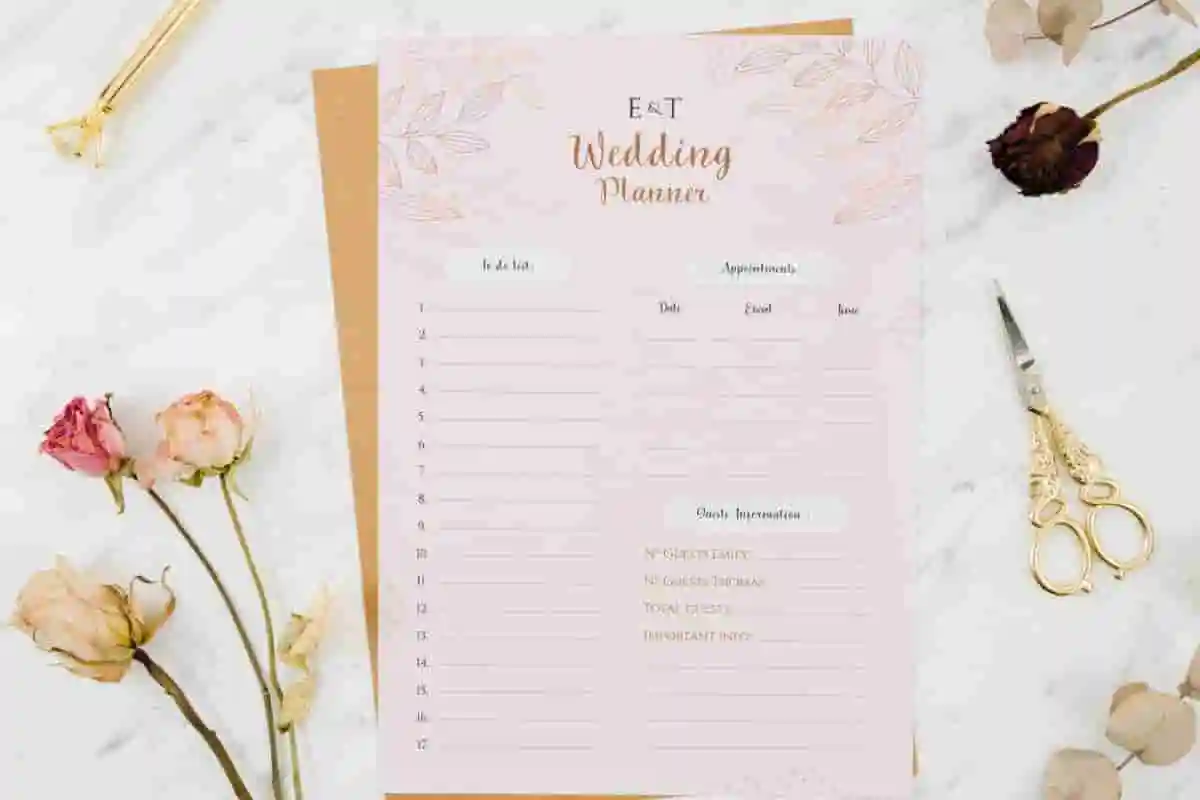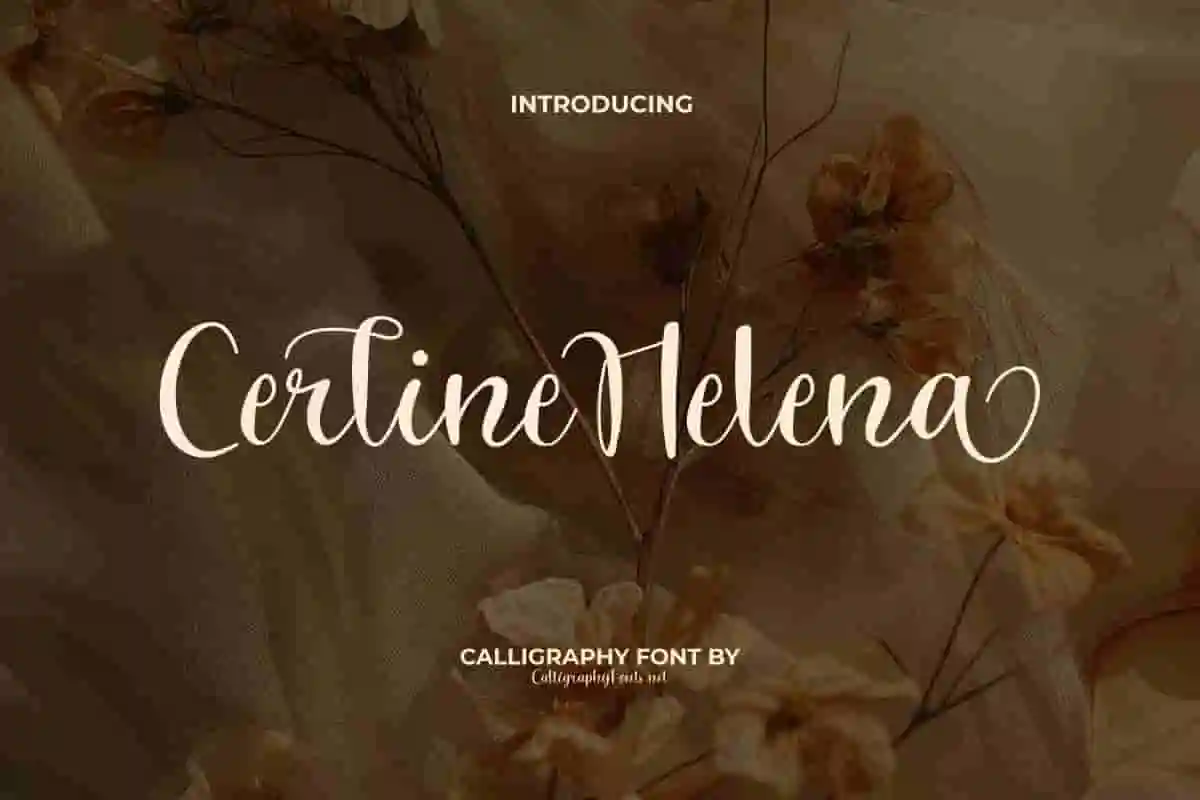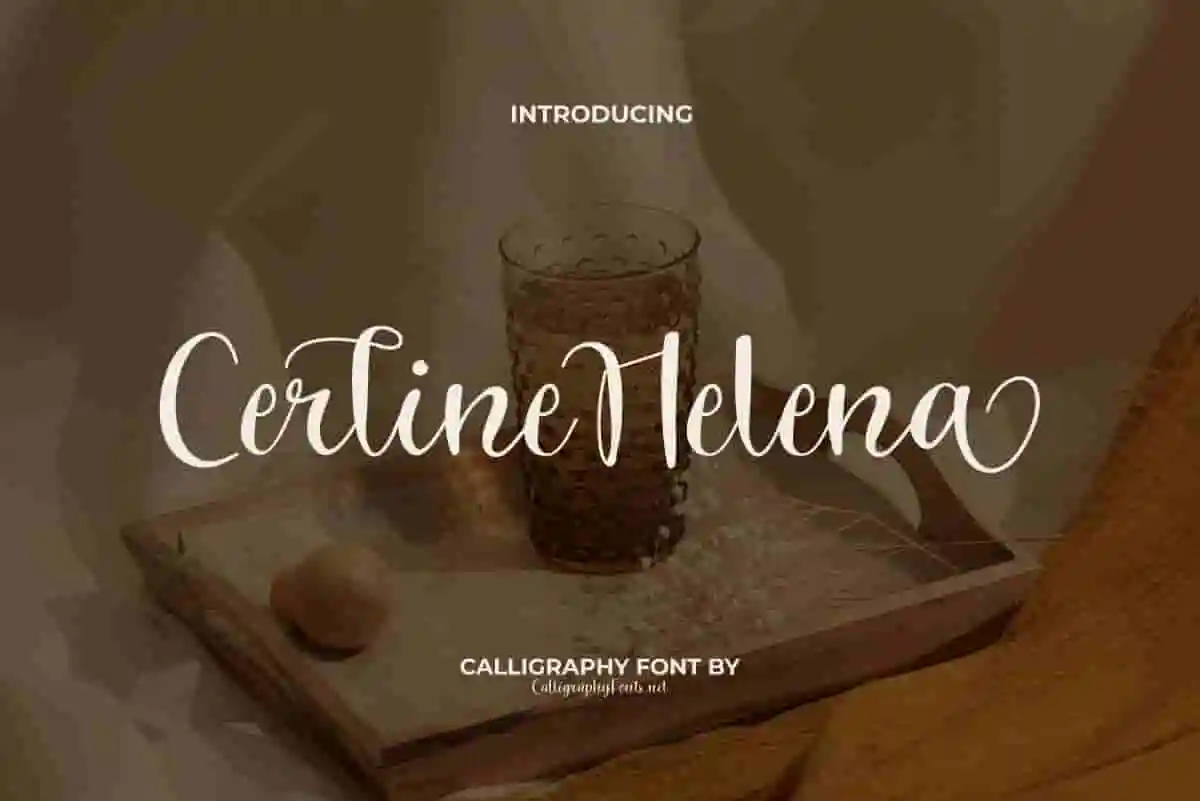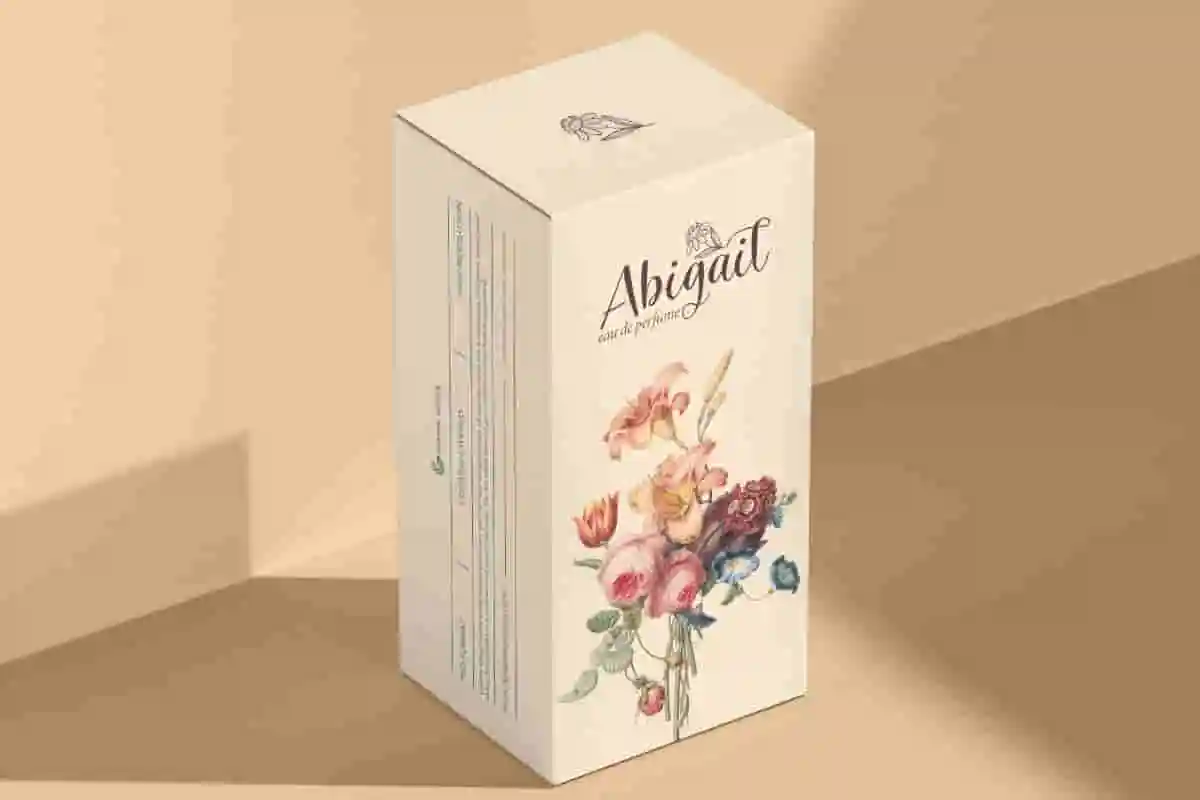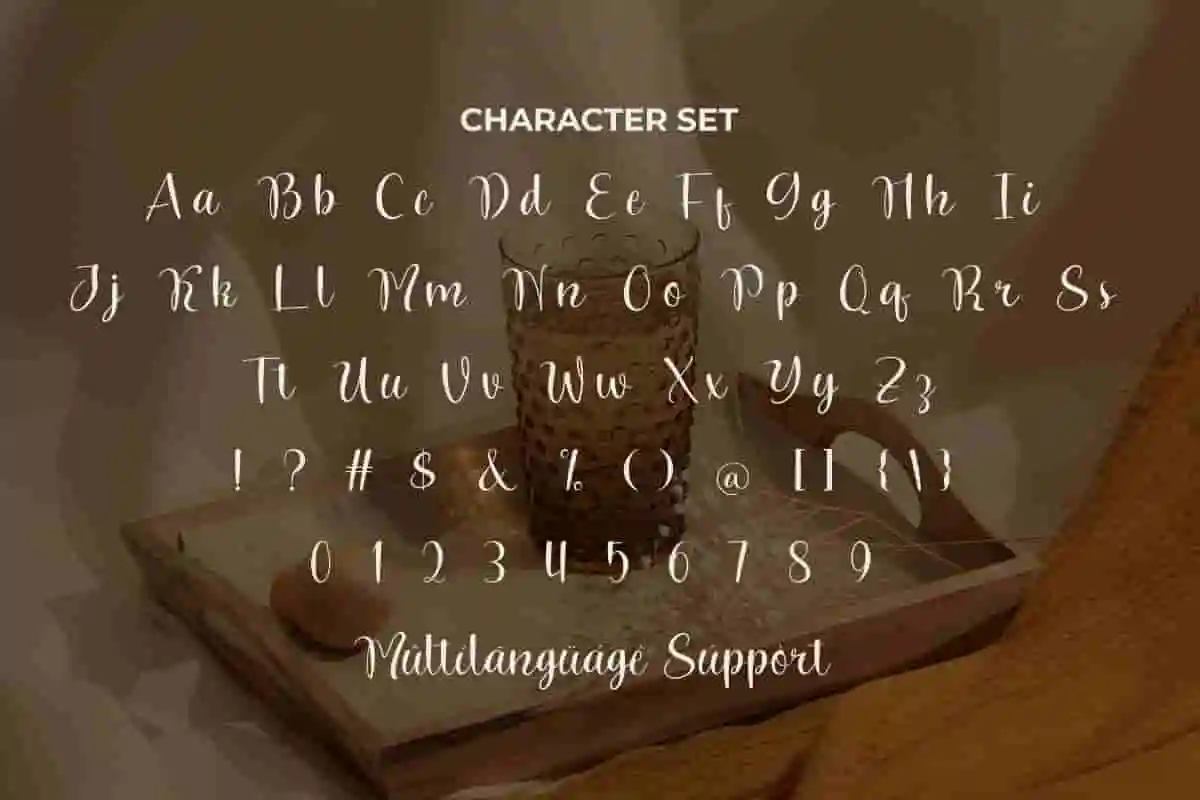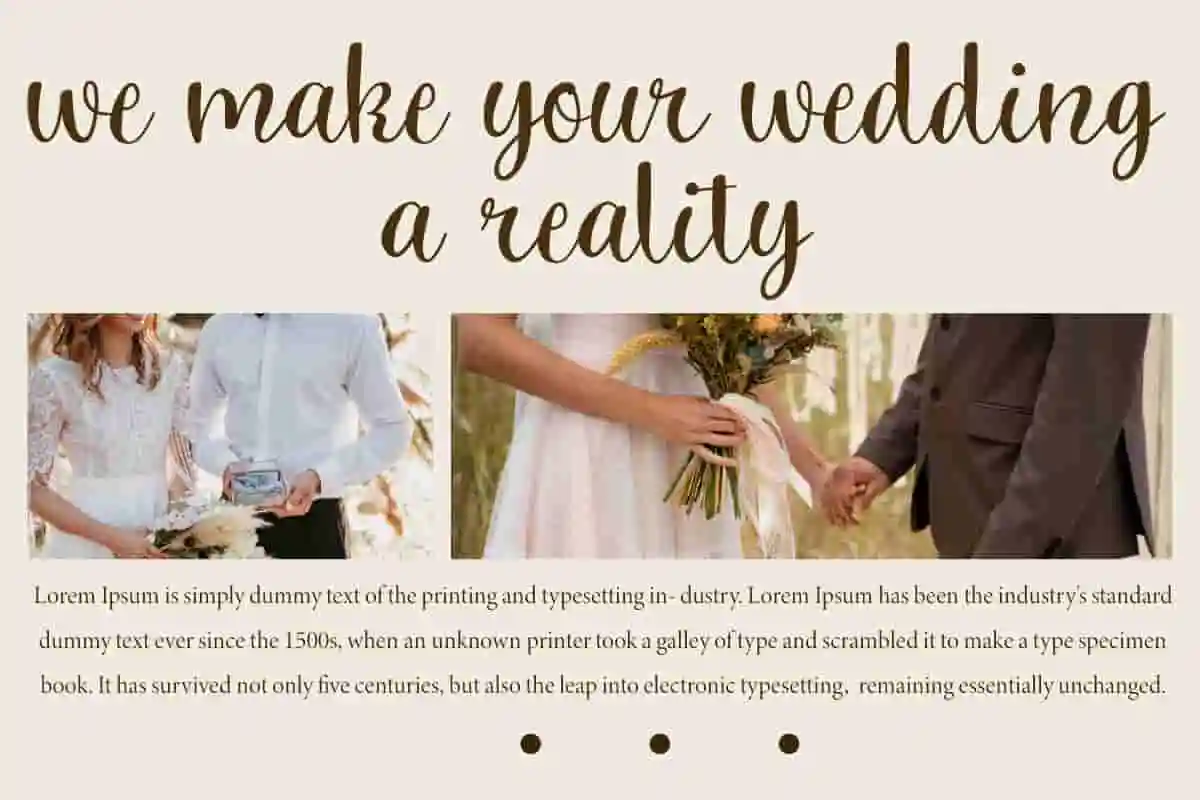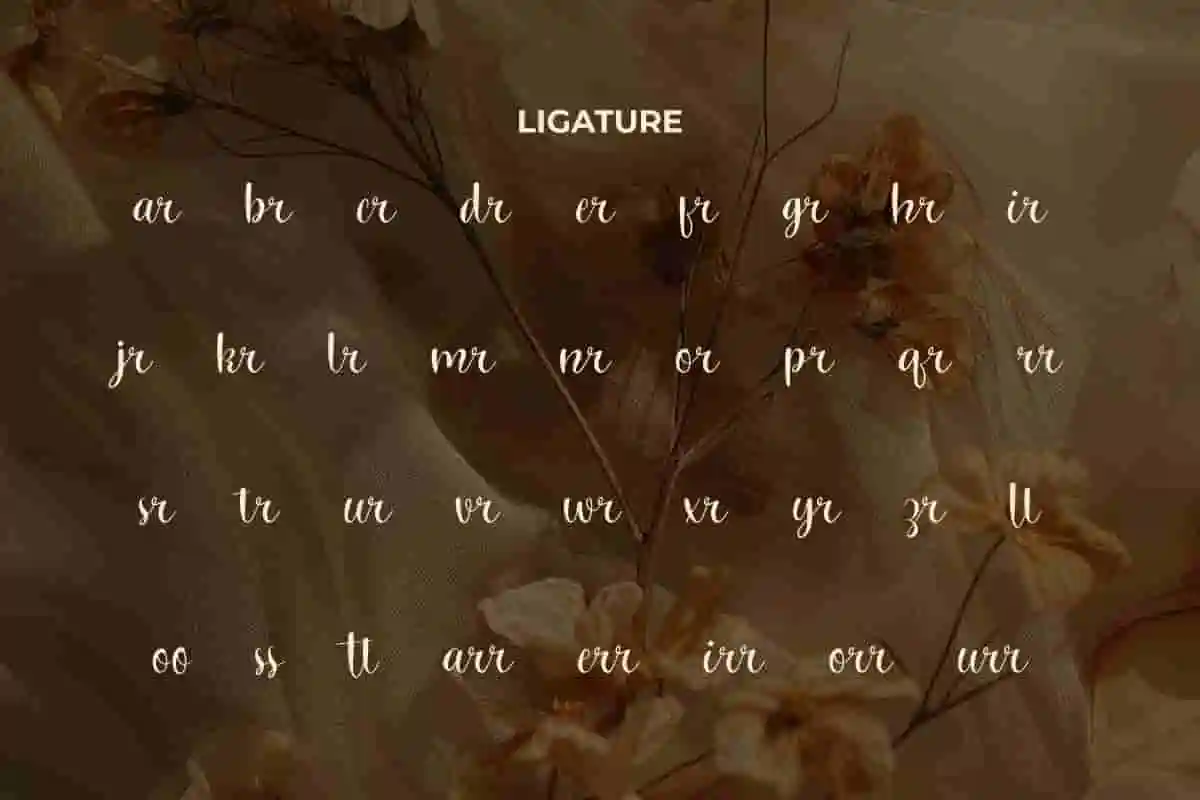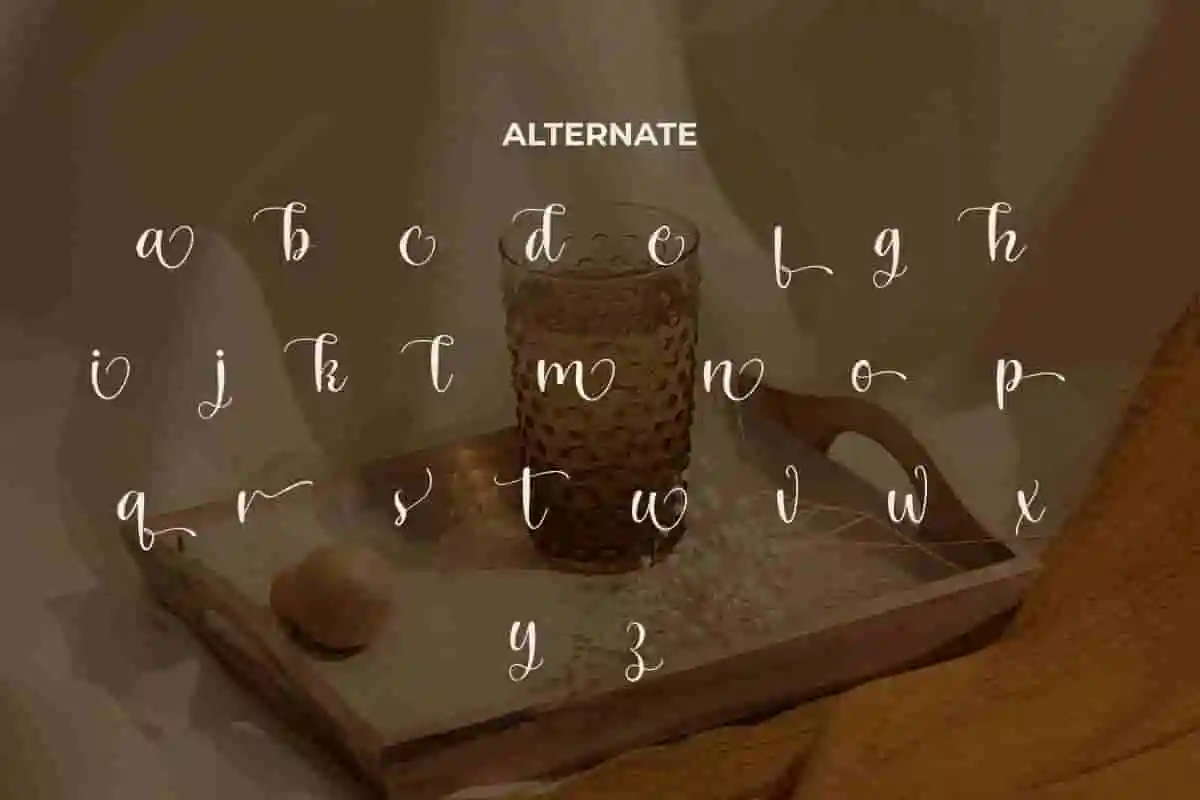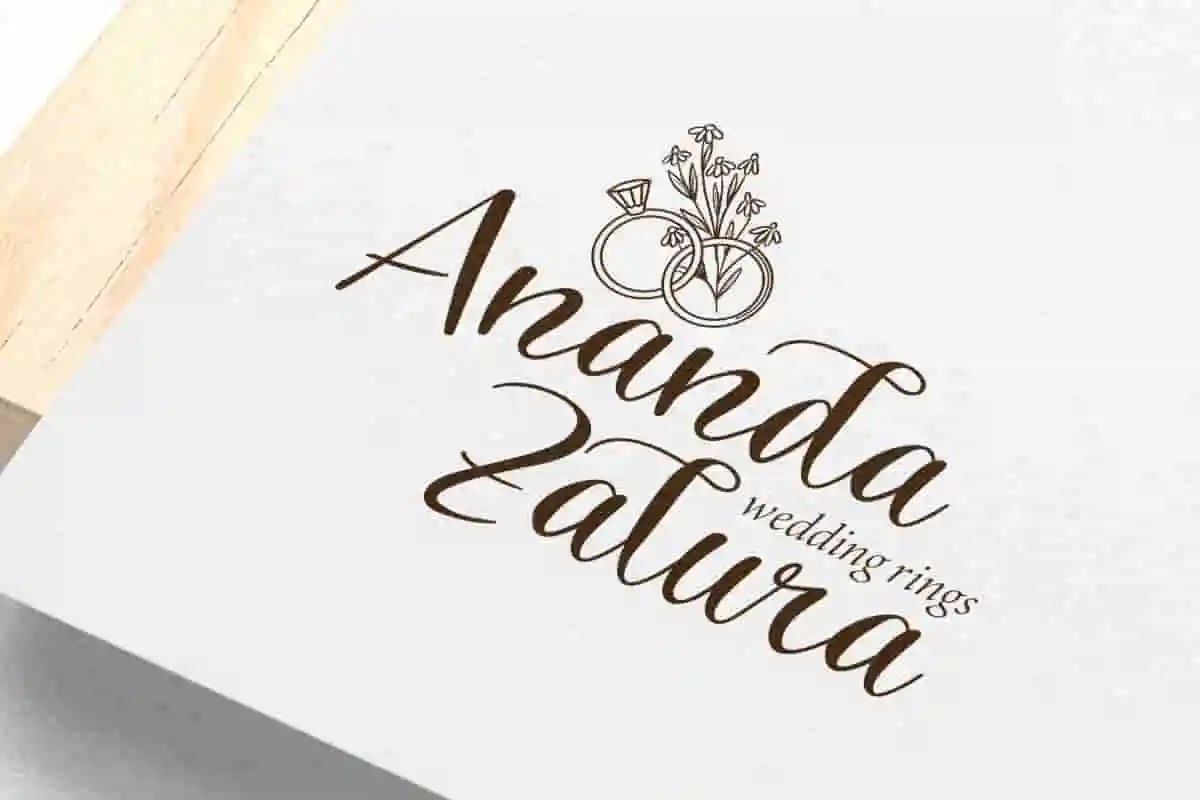
Cerline Helena Font
Cerline Helena Font is a beloved sophisticated calligraphy font. It will be perfect for your creative ideas, both formal and informal. This font is great for boutique, invitation, guest book, wedding, etc.
Cerline Helena Font is a beautiful calligraphy font with lots of more interesting ligatures and alternates. This professional typeface has an irregular thickness to tapered curves, so that the letters produce a distinctive script aesthetic with a relaxed but attractive feel. Perfect for apps, blogs, brochure, flyer, headers, invitations, mockup, product packaging, stationery, template, website, and much more.
Bring elegance and charm to your projects with Cerline Helena Calligraphy Font, a modern calligraphy typeface crafted to inspire creativity and sophistication. With its flowing strokes, delicate swashes, and stylish curves, this font captures the beauty of handwritten calligraphy while maintaining excellent readability for both print and digital designs.
Cerline Helena Calligraphy Fontis the perfect choice for wedding invitations, branding, luxury packaging, greeting cards, social media posts, and elegant logos. Its versatile and romantic style makes it suitable for everything from personal creative projects to professional design work.
In today’s visual world, typography is more than text—it’s an emotion. Cerline Helena Calligraphy Font helps you create designs that feel personal, heartfelt, and unforgettable. Its graceful balance of romance and professionalism makes it especially appealing for weddings, fashion, lifestyle, and luxury branding.
Cerline Helena Calligraphy Font comes with a classy calligraphy style and one of the most modern and elegant fonts that is not boring for weddings and other happy days. Perfect for author, bridal boutique, bouquet shop, fashion, furniture, graphic design, home interior, jewelry store, perfume brands, real estate, restaurant, web designer, wedding organizer, wedding tailor, writer, and much more.